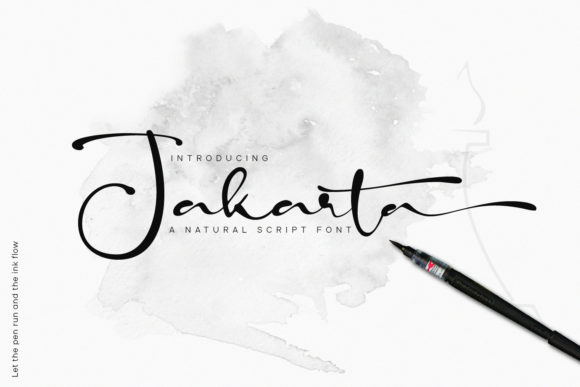
Immerse yourself in the world of Jakarta Font, a script font family that embodies elegance and sophistication. Designed with precision by the talented Cititype foundry, Jakarta exudes a clean, thin, and smooth vibe that adds a touch of grace to any design.
Unleash your creativity with Jakarta Font, the perfect choice for crafting captivating logotypes that leave a lasting impression. Its delicate strokes and refined curves bring a sense of timeless beauty to your designs, making them stand out from the crowd.
Jakarta Font isn't just a font; it's an artistic expression that elevates your designs to new heights. Its versatile nature allows you to experiment with different styles and applications. Whether you're designing logos, branding materials, invitations, or social media graphics, Jakarta Font seamlessly adapts to your vision.
Let Jakarta Font be your creative companion, guiding you through the realm of typography. Its user-friendly format ensures that you can effortlessly incorporate it into your projects, allowing you to focus on what truly matters - creating stunning designs that captivate and inspire.
Embrace the beauty of Jakarta Font and embark on a journey of design excellence. Let its graceful strokes and elegant curves transform your creative ideas into extraordinary realities. Experience the Jakarta difference today and elevate your designs to new heights of sophistication.